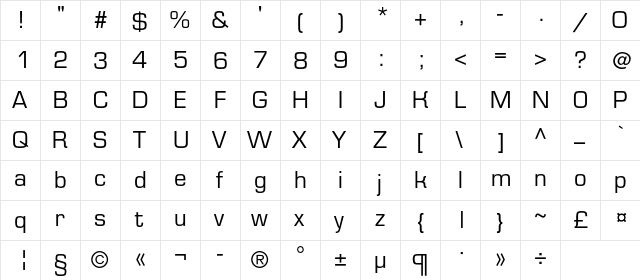
EurofontC Regular
Design Context for EurofontC Typeface
EurofontC offers clean, dependable letterforms without strong stylistic allegiance, making it a practical choice for designers who need flexibility.